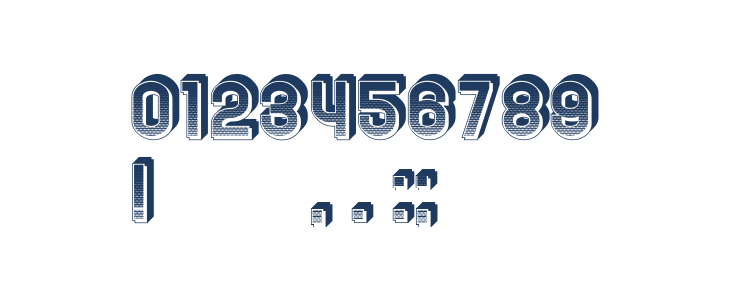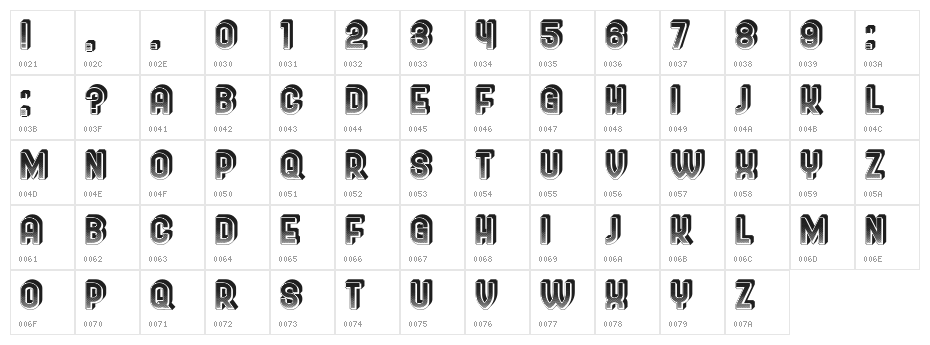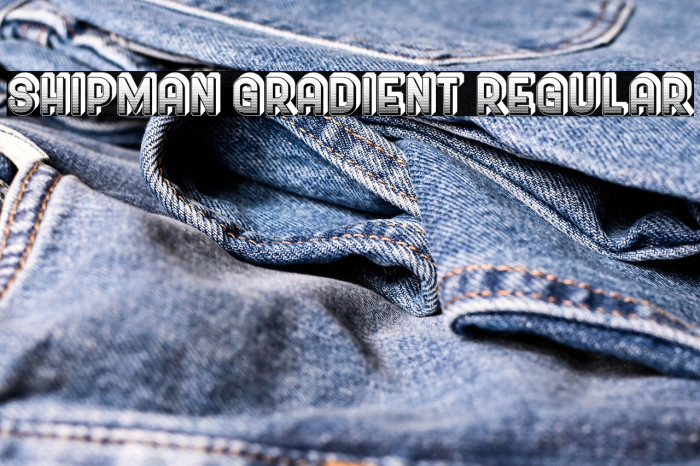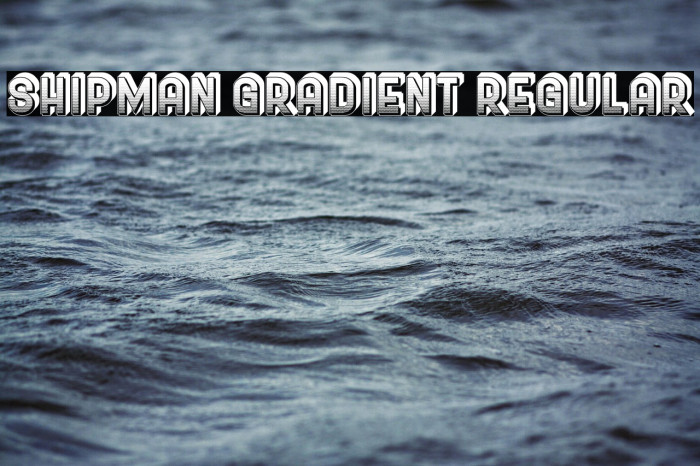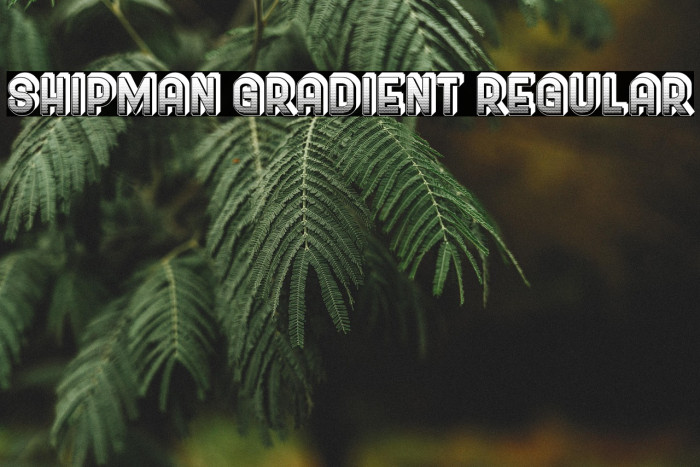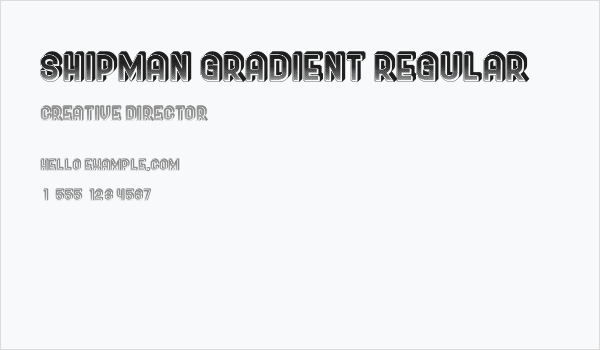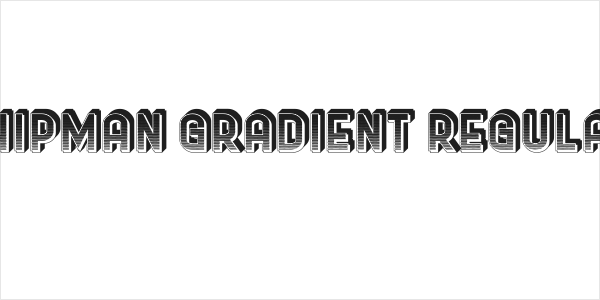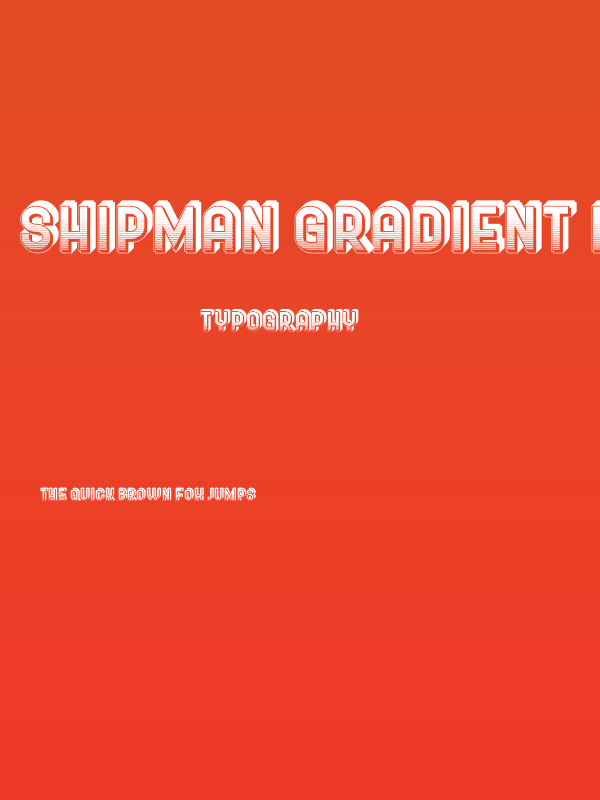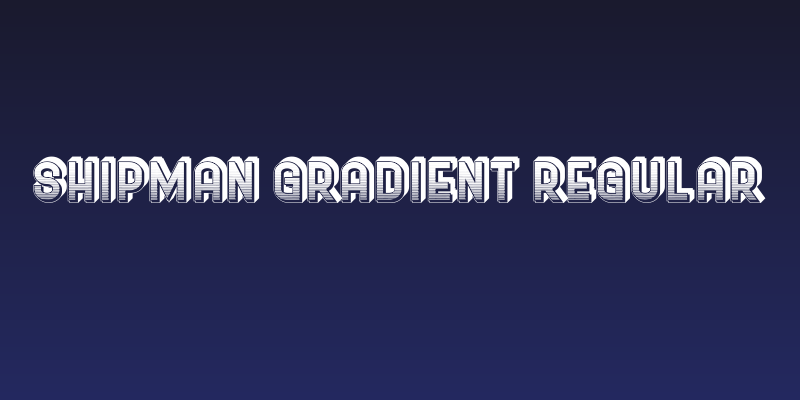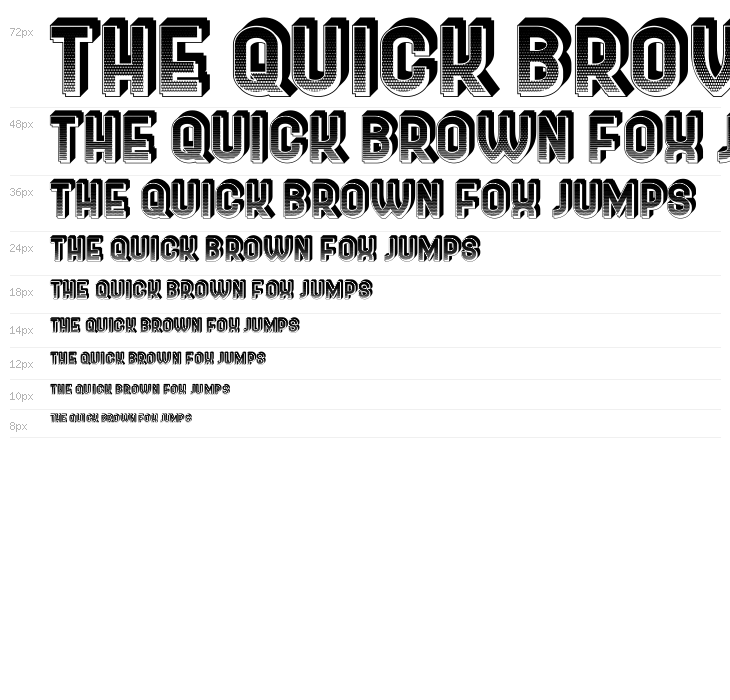
Shipman Gradient Regular Font
This font features a bold, decorative style with a distinct gradient effect that gives it a three-dimensional appearance. The letters are uppercase and have a strong, impactful presence, making them ideal for attention-grabbing designs. The gradient shading within each character adds depth and a sense of movement, enhancing its visual appeal. The font is well-suited for projects that require a dynamic and modern look, such as posters, headlines, and branding materials. Its unique style combines elements of both vintage and contemporary design, making it versatile for various creative applications.
| Proposed Projects | Ideal for posters, headlines, branding, and dynamic design projects. |